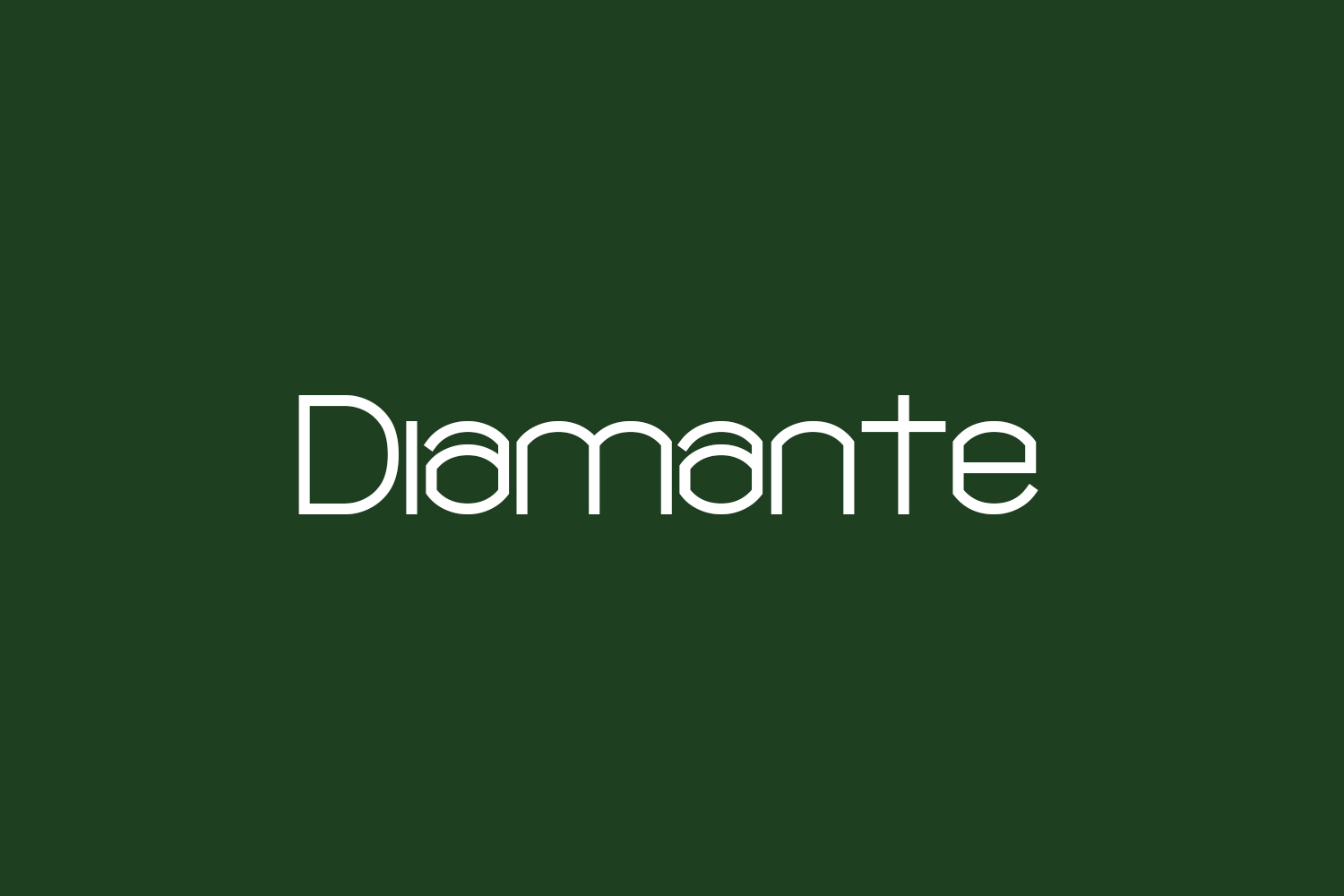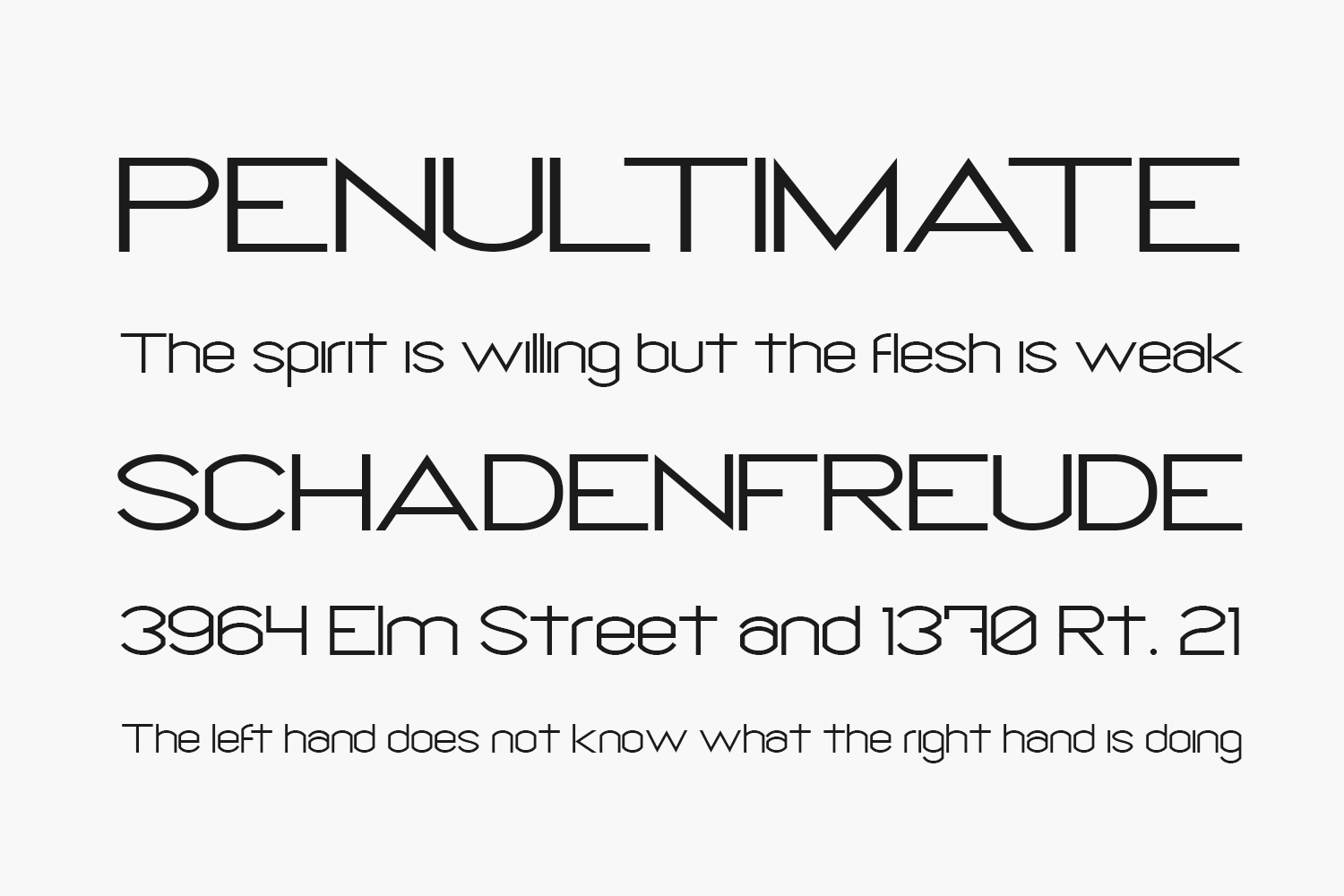
Diamante Free Font is a unique Sans Serif font for your designing pleasure. This font is Bold, Interesting, and good for Body Type, as well as Large Titles, so you should be able to find a lot of different applications for it.
Designed by Muraknockout Media